WHAT ARE THE BEST FONTS TO USE FOR A WEBSITE?
When it comes to fonts, there are almost too many style options available. Over 600,000, in fact.
There’s interesting psychology at work behind choosing the right font. Fonts can elicit an emotional response from customers or individuals looking at your website, and a readable font provides clear information about your services.
The right font can make or break your website, but with so many options on the best fonts to use for websites, how do you narrow your selection down?
Let’s review a few tips and tricks to help you choose web design fonts so that your website and business can successfully thrive.
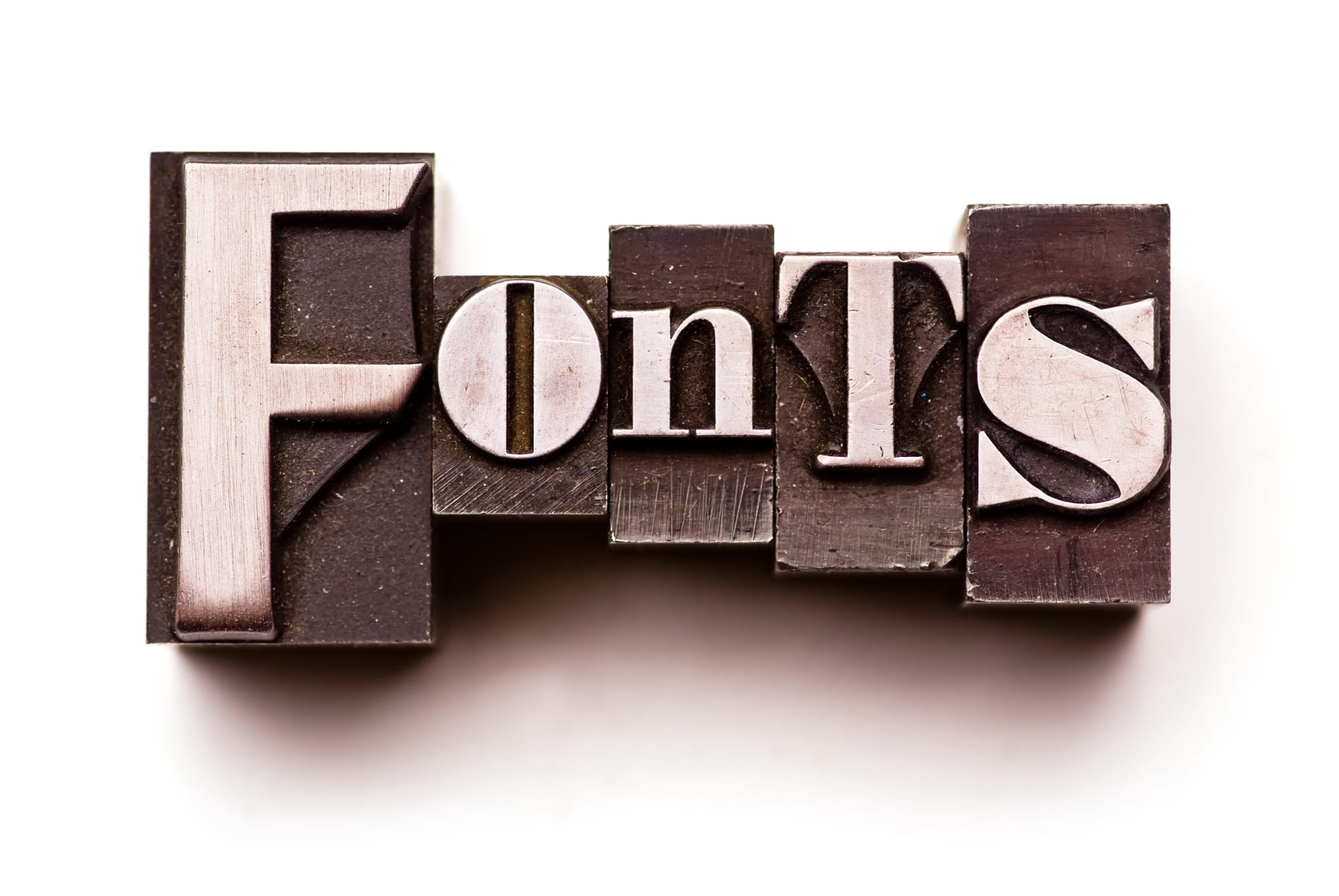
The History of Web Fonts
Back in the 80s, Steve Jobs presented the world with the first-ever Mac computer.
The Macintosh was the first commercially successful home computer that utilized what’s now a necessity in the world of computers – the mouse, and the keyboard. Up until that point, computers featured a command-line interface, demanding that users type their requests into their computer to launch different programs.
Steve Jobs didn’t just implement the mouse and keyboard, however; he was also responsible for introducing the world to ten different fonts that a user could select.
It may not seem like much, but the introduction was revolutionary at the time.
Fonts have now become so commonplace that choosing the right font for academic papers, letters, businesses, and websites is a critical choice.
The Best Fonts to Use for Websites
Nowadays, you can’t just pick any font and slap it on your website.
You need to carefully consider the font style that best represents you, your brand, and your company’s voice. But how do you do that?
Stick to Your Brand
A casual eatery will have a much different voice than a fine dining establishment.
The way that voice is portrayed depends on the type of font you’re using.
A fun, looping text isn’t going to represent a Michelin-star restaurant very well, but it may demonstrate the fun-loving nature of a casual dining establishment.
So analyze what you want your brand to say, and how you want to say it. You’ll be able to identify a font that coincides with your brand identity and be able to represent your company through words as well as visually.
Deliver Consistency
A good rule of thumb is to limit your font selection to three different types:
One font style for titles and the main part of your website.
One font style for subtitles and subheadings.
And one font style for the body of your website.
You can play with web design using different fonts, but you don’t want to have too many drastically differing fonts on your website (unless you specialize in fonts.)
Having too much variety among your fonts will make your website look cluttered and it may be hard to read or navigate. Consistency among your fonts, even if they vary a little bit, will help to further the cohesion of your website and the voice you want your brand to represent.
Think About Emotion
Just as you want to recognize your brand voice and represent your company’s mission, the emotion you want to represent will affect the font type you should be picking.
A serious medical website that imparts the latest news to internet users represents a different emotion than a storytelling food blog. The differences between these two types of websites mean that they’re going to use strikingly different font types.
Think of the same scenario for your own business. Reading serious news in a fun font like Papyrus is not going to get your message across as effectively as a modern, easy-to-read font like Georgia.
So take the time to consider the emotion you’re representing. There are plenty of fonts that fall into the middle ground between serious and fun without sacrificing on readability or visual design.
Do Your Research
The best way to see a font at work is to research.
Spend time examining other websites and see what kinds of fonts they’re using. Try to find sites that don’t use an effective font. Find sites that utilize fonts and variety in a way that sells their brand.
Having a visual idea of how a font can work for and against you on your website will give you a great foundation to build upon, and give you a strong idea of what to do and what not to do.
Even opening a word processing application and viewing example fonts can give you a strong sense of what looks good and what does not look good.
Stick to One Family
Fonts typically fall into three different categories: serif, sans serif, and script. These three categories encompass most of the internet’s fonts, with a few exceptions.